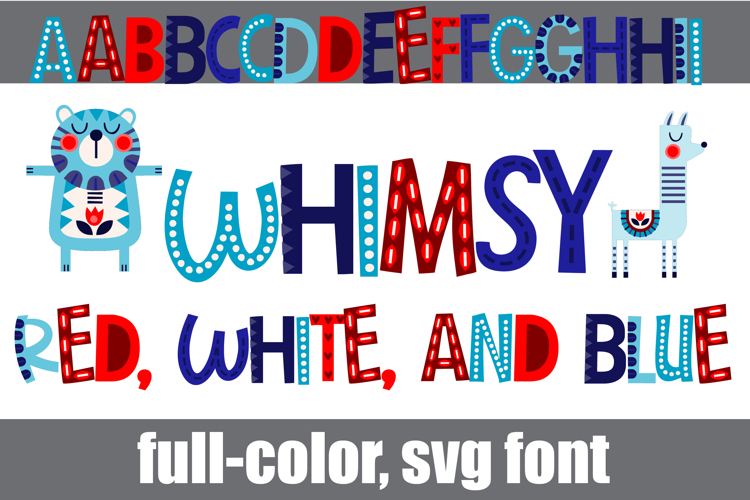
Whimsy Red, White, and Blue Color Font
This full-color, whimsical style font is in a patriotic color palette. Access the whimsical animals by typing the slashes, curly and triangle brackets and the equal glyph. There is an alt case of additional colors of each letter that you can access through your system's character map.